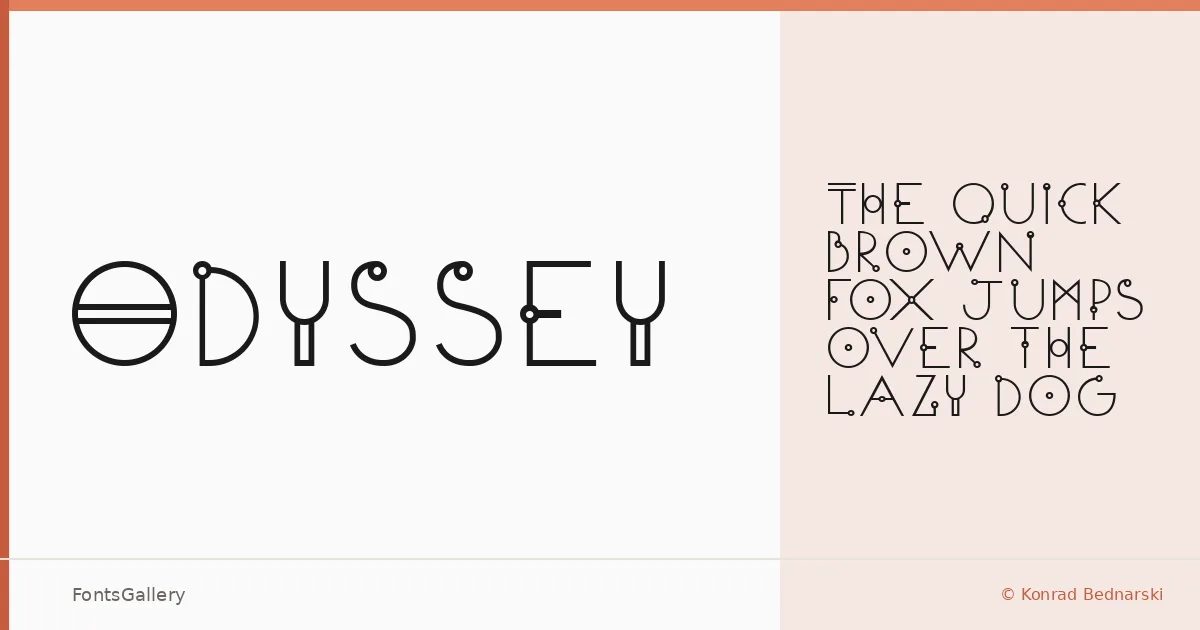
There is a cool restraint to these letterforms — the kind of minimal tension that comes from a designer who knows exactly when to stop. Odyssey is a display typeface drawn by Konrad Bednarski, offered as a single Regular cut in TTF format.
The family sits squarely in display territory, with a mood that reads as simultaneously elegant and futuristic. The forms are stripped back and modern, built for situations where one well-chosen headline carries the weight of an entire composition. A single weight means every decision about emphasis has to come from size, spacing, and context rather than from switching styles — which, in the right hands, is a discipline that sharpens the work.
This is a face for branding marks, poster headlines, magazine covers, and logo lockups where the letterforms themselves need to do the talking. The minimal character suits editorial layouts that lean architectural or forward-looking. It pairs well with the clean neutrality of Helvetica or Aileron, holds its own against the structured geometry of Abrade and AQUA, and can balance nicely with the more classical proportions of Anglecia Pro.